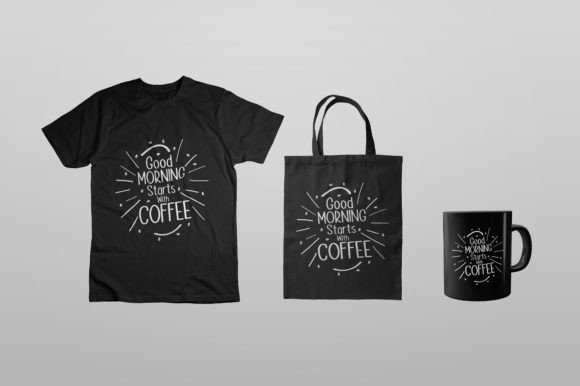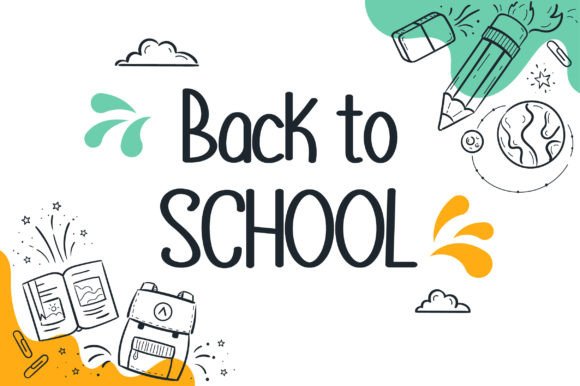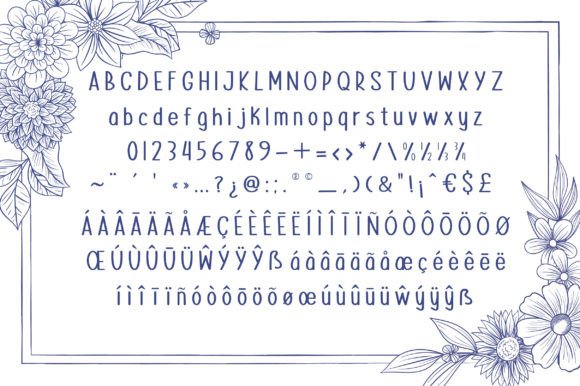
Introduction to Makarouna Font
Do you remember that moment when you were working on a creative project and the right font just made all the difference? It was as if the entire design came together in perfect harmony. For designers and crafters alike, finding that perfect font can be a game-changer. Enter the Makarouna Font – a sweet and natural-looking handwritten font that’s sure to become your new favorite design resource.
Whether you’re working on a presentation, making greeting cards, or creating a digital design, the Makarouna Font has the potential to elevate your project to the next level. With its high-quality design and versatility, this font is a valuable addition to any designer’s toolkit. And the best part? It’s available for free download, making it an accessible design resource for creatives of all levels.
Key Features of Makarouna Font
- High-quality, hand-drawn design ideal for creative projects with a transparent background.
- Font size: 1000 glyphs, with a wide range of characters to support various languages.
- Unique, hand-crafted style with intricate details, perfect for adding a touch of personality to designs.
- Works well in both print and digital projects, making it a versatile design resource.
Honest Review: Makarouna Font
I recently stumbled upon the Makarouna Font, and I must say it’s a lovely addition to my design resource collection. This free download is perfect for anyone looking to add a touch of elegance to their creative project.
What works well about the Makarouna Font is its high quality and versatility. It’s available in a range of styles, from casual to formal, making it suitable for various design projects. The font’s clean lines and modern aesthetic make it an excellent choice for creating visually appealing graphics.
However, I did notice a few limitations. The font’s character set is somewhat limited, which may not be ideal for projects that require a wide range of characters. Additionally, the font’s bold weight could be more consistent across different font sizes.
- ⚠️ Limited character set may not be suitable for complex projects
- ⚠️ Bold weight may not be consistent across different font sizes
Overall, the Makarouna Font is a solid addition to any design resource collection. While it may have some limitations, its high quality and versatility make it an excellent choice for designers looking to add a touch of elegance to their creative projects.
Makarouna Font
The Makarouna Font is a high-quality design resource perfect for creative projects that require a unique and eye-catching style. This free download offers a transparent background, making it easy to integrate into your design.
Tips for Getting the Most Out of the Makarouna Font
To get the most out of the Makarouna Font, try using it in bold and italic styles to add emphasis to your design. You can also experiment with different font sizes and colors to create a unique look.
The Makarouna Font is perfect for creative projects such as:
- Event promotion and marketing materials